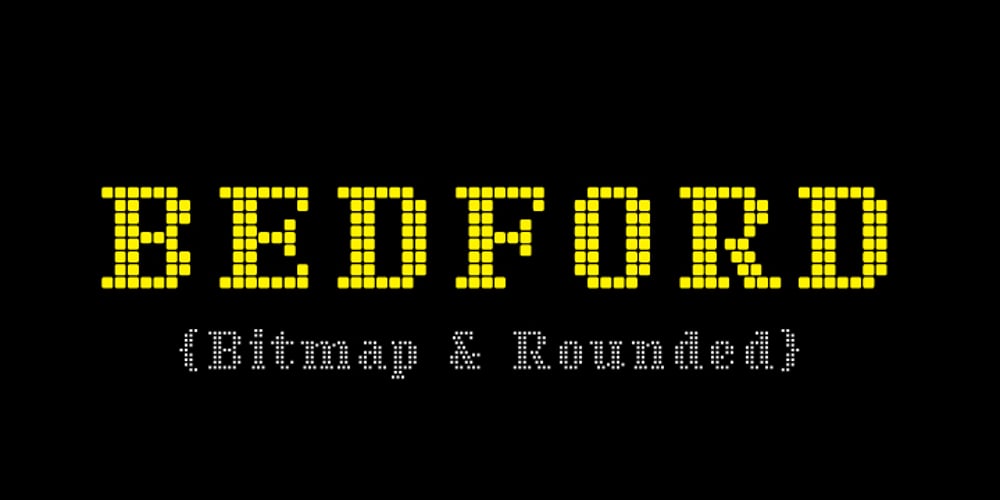
Bedford
Bedford font
Bedford Font Family was designed by Richard D. Granados and published by Stereo Type Haus. Bedford contains 2 styles and family package options. Inspired by mosaic lettering by Heins & LaFarge, architects of the IRT (Interborough Rapid Transit) in New York City. Bedford hints at the station names on platform walls which date back to 1904 but modernize it through a rigid grid system and rounded corners. The family consists of two styles, Bitmap for web usage with a perfect pixel snap, and Rounded for a softer and bolder look.